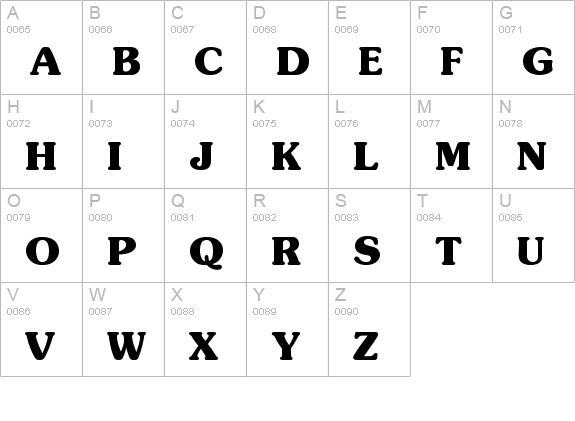
Souvenir* Bold is a strong, high-contrast variant in the Souvenir* typeface family \xE2\x80\x94 well suited to headlines, attention-grabbing titles, and strong calls-to-action.
Introducing Souvenir* Bold font, a captivating typeface that exudes elegance and sophistication. With its bold and commanding presence, this font is perfect for making a bold statement in various design projects. Featuring strong and confident letterforms, Souvenir* Bold font adds a touch of class to any design, whether it's for branding, advertising, or editorial purposes. Its clean lines and well-defined curves create a visually pleasing aesthetic that captures attention and engages the viewer. But that's not all – what makes Souvenir* Bold font truly exceptional is that it is freely available to download at FontsMarket.com. Yes, you read that right! You can get your hands on this incredible font without spending a dime. Whether you're a professional designer or a hobbyist, having access to high-quality fonts at no cost is always a welcome opportunity. And with Souvenir* Bold font, you can elevate your designs without breaking the bank. So don't miss out on this amazing offer! Be sure to visit FontsMarket.com and download Souvenir* Bold font for free. With its timeless appeal and effortless style, this font is sure to become a valuable addition to your typographic arsenal.